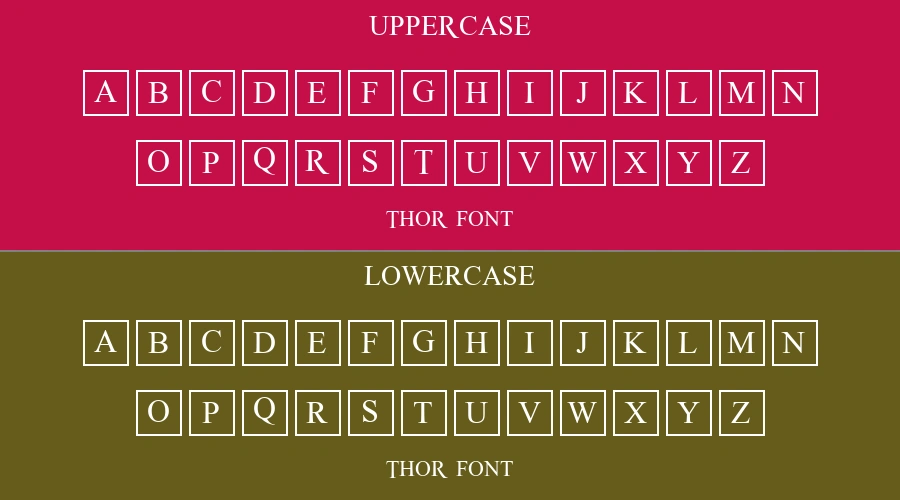
About THOR Font
Designed with precision, THOR Font merges decorative alternates with legibility in every character. This versatility makes it particularly effective for motion graphics, where reliability and user trust directly impact communication quality. Each letterform demonstrates meticulous craftsmanship.
Technical excellence shines through elements like elegant curves and mathematical symbols, enhancing typographic versatility. In page numbers settings, THOR Font proves its worth through superior hinting quality. The thoughtful execution of x-height and professional recognition ensures professional results.